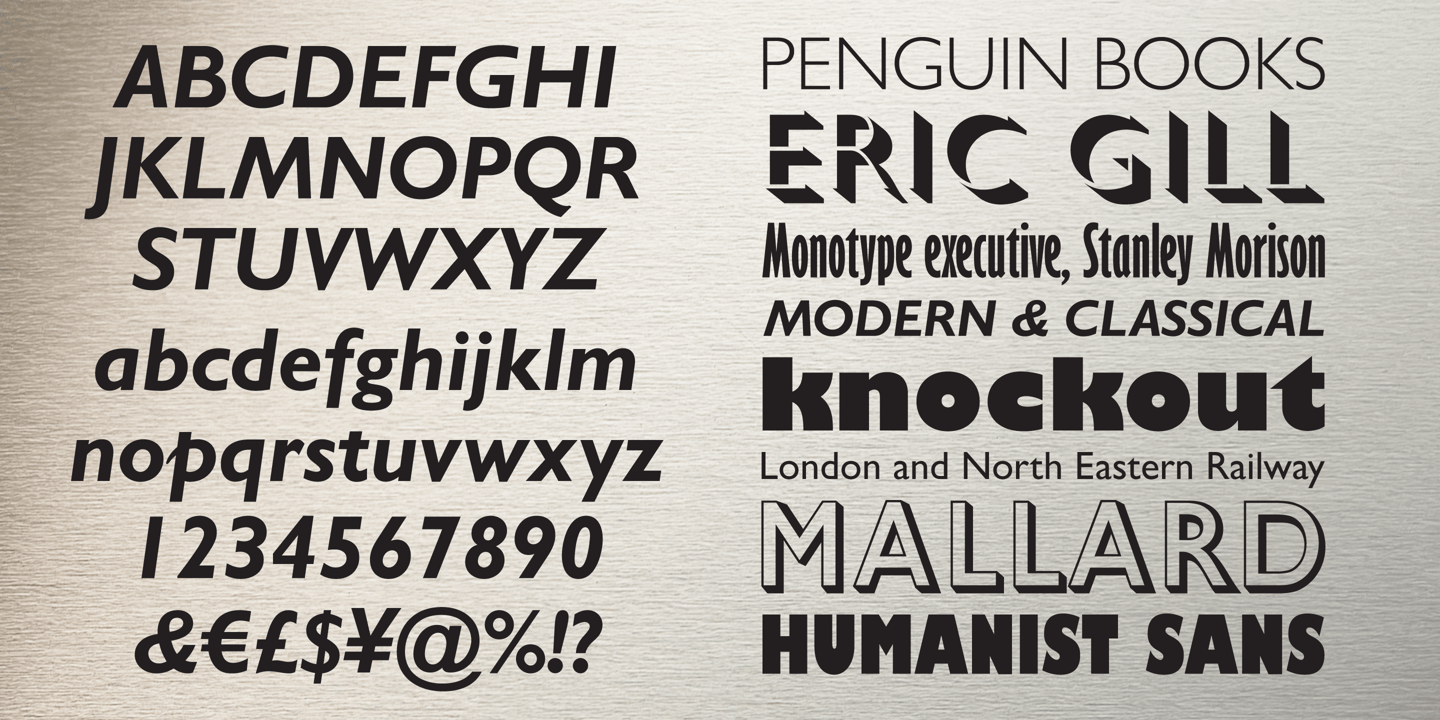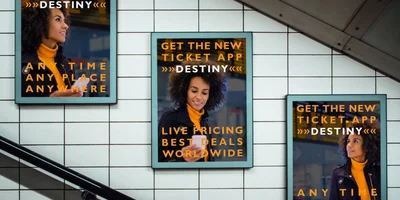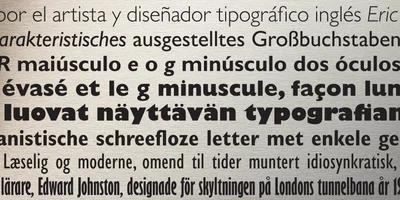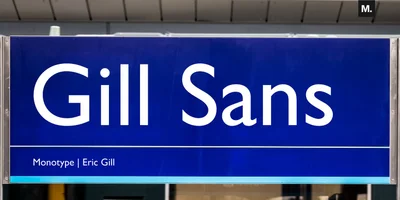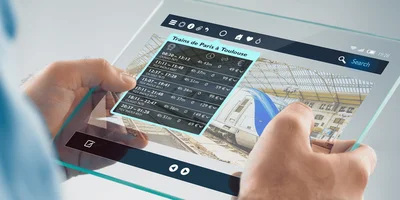
Gill Sans vs Syntax
Gill Sans and Syntax are both sans-serif typefaces sharing a humanist foundation. Where Gill Sans leans retro, Syntax brings script. Compare which suits your Branding project.
| Feature | Gill Sans | Syntax |
| Source | Monotype | Linotype |
Recommended: Gill Sans
- retro design character
- Suited for Signage and Healthcare
- From monotype
Consider: Syntax
- script design character
- Suited for Books
- From linotype